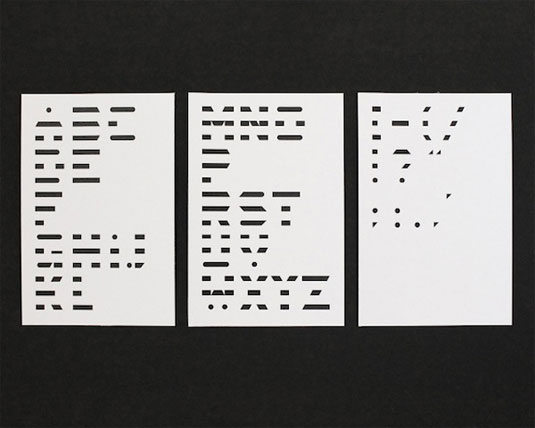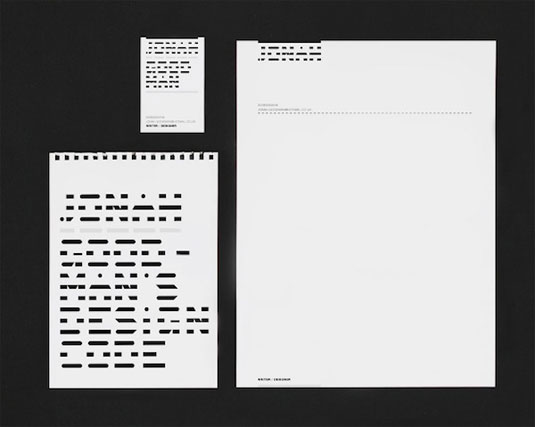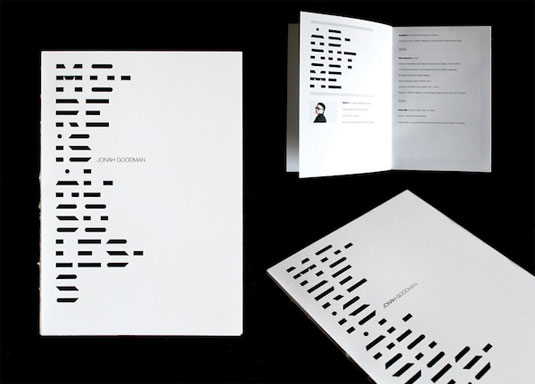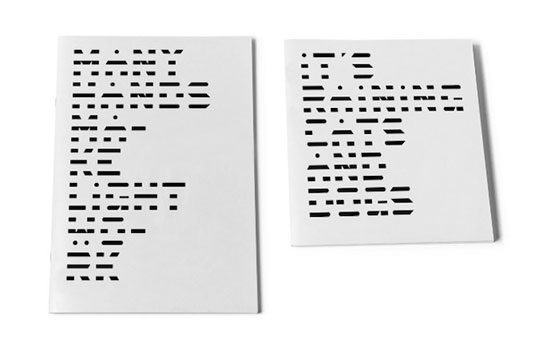
Dot and dash typeface inspired by morse code
Graphic designer Grant Li has created this morse code-inspired typeface for a new identity project.
Chinese graphic designer Grant Li was given the task of creating a brand new identity for writer and designer Jonah Goodman. Taking inspiration from the fact that Goodman can speak five different languages, Li created this rather lovely morse code-inspired typeface.
Describing morse code as a 'graphical language', Li has crafted a truly unique font. Made up of mostly dots and dashes, the letters are more readable than you might think - although writing a whole sentence may well take up a whole paragraph!
The typeface will be used across Goodman's flyers, business cards and his website. Although there's currently no 'Q' included in the font, we still think this original offering a work of art. What do you make of it?